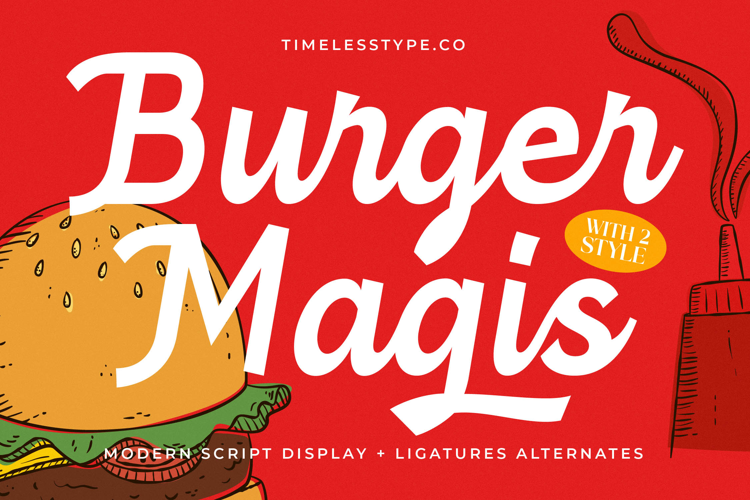
Burger Magis - Modern Script Display
Elevate your designs with the distinctive charm of Font Burger Magis - Modern Script Display Script. This captivating typeface merges the fluidity of traditional script with a clean, contemporary aesthetic, making it an ideal choice for impactful display purposes. Its bold, energetic strokes and friendly demeanor ensure your message is not just seen, but memorably experienced.
Crafted with impeccable attention to detail, Font Burger Magis - Modern Script Display Script features two versatile styles alongside a rich set of ligatures and alternates, offering unparalleled creative flexibility. It's perfect for luxury branding, gourmet packaging, stylish invitations, editorial design, logo design, and social media graphics, where its high-contrast form demands attention and exudes sophistication.